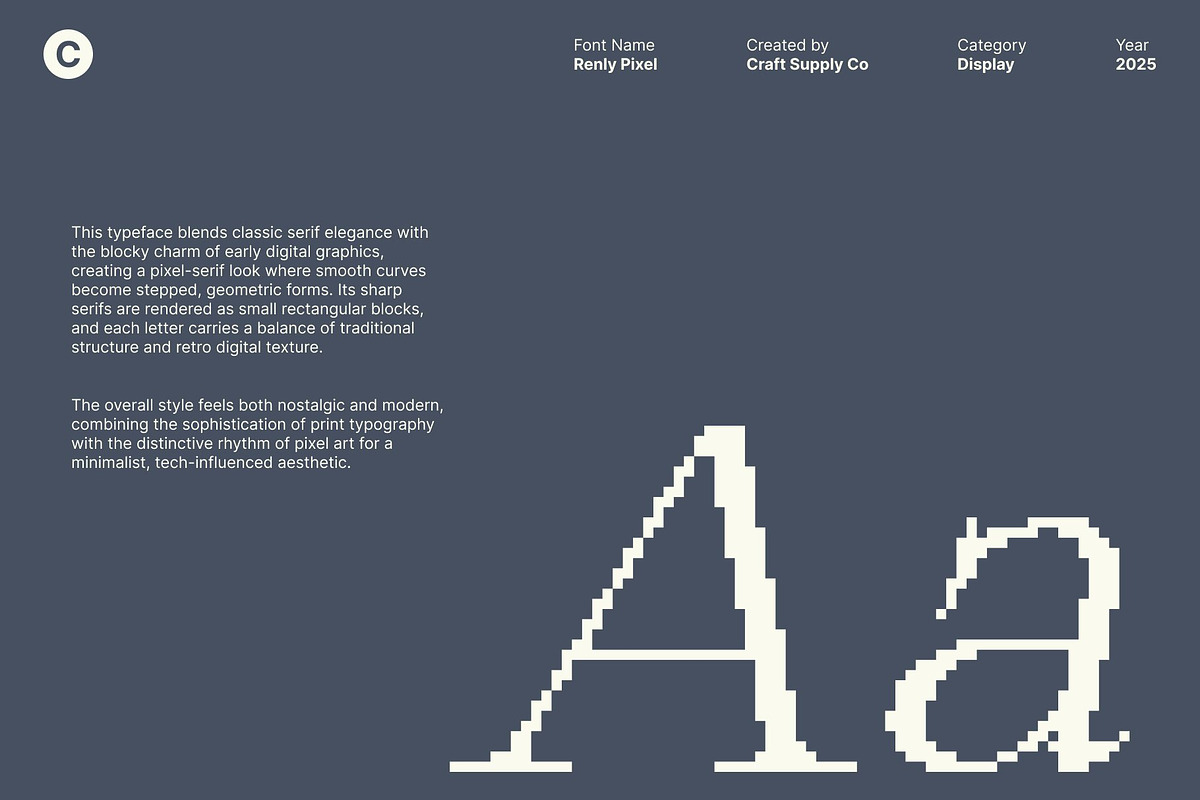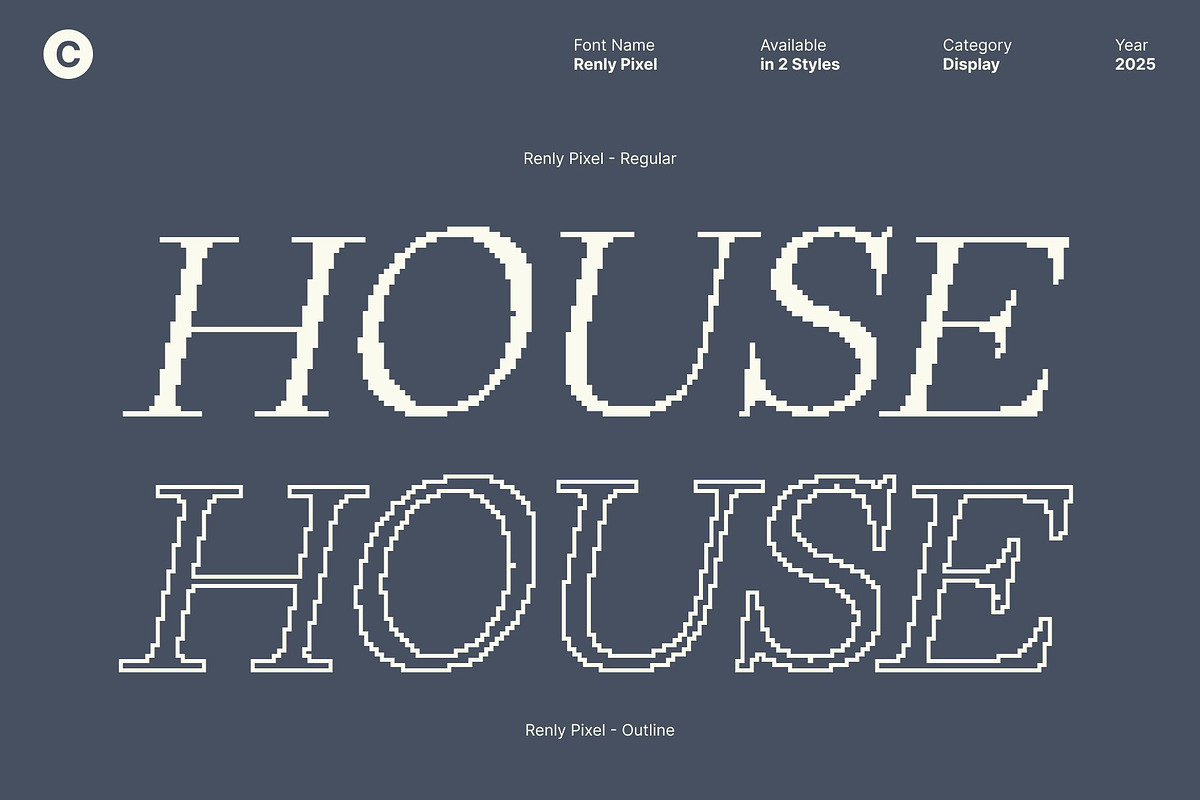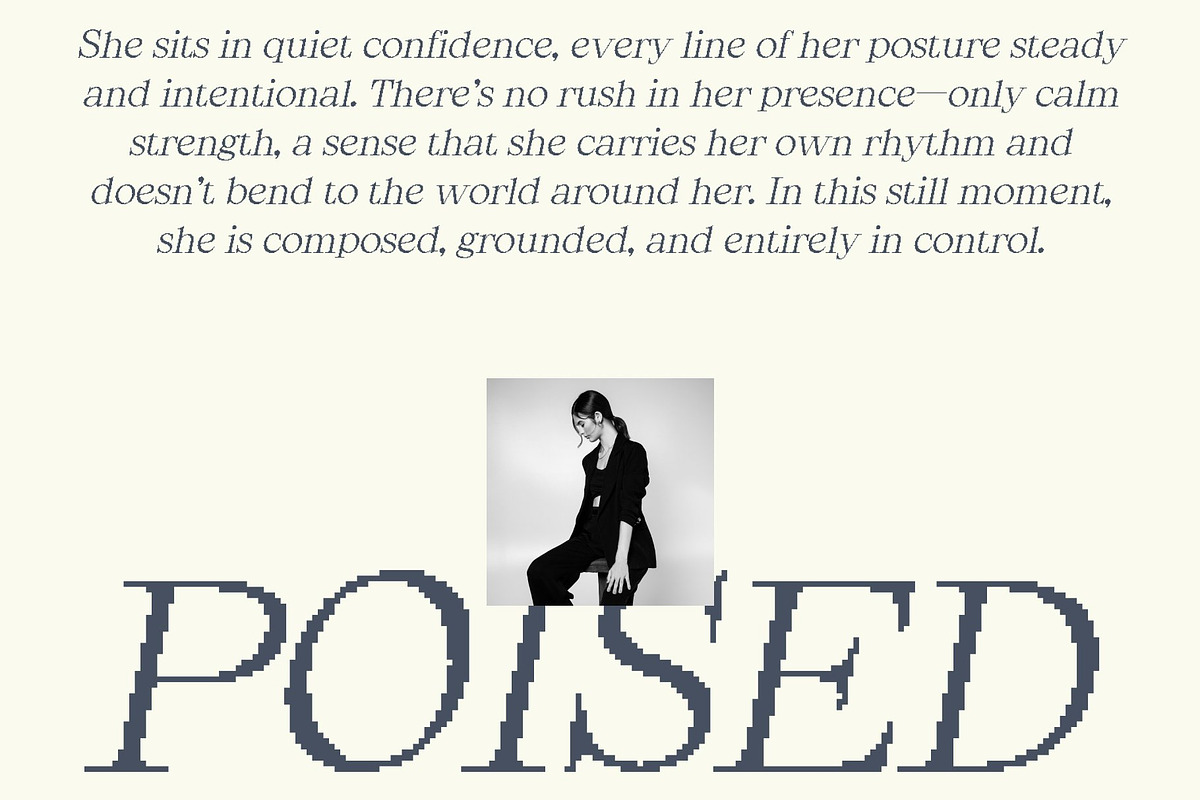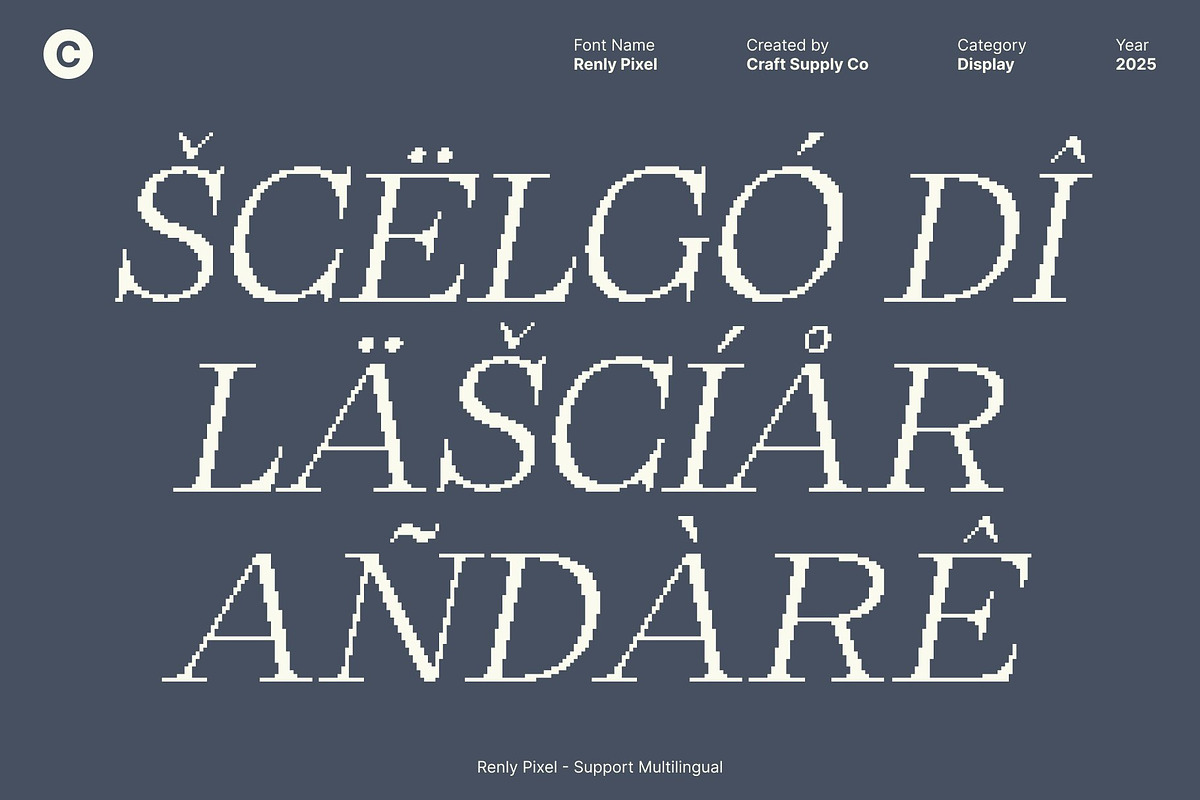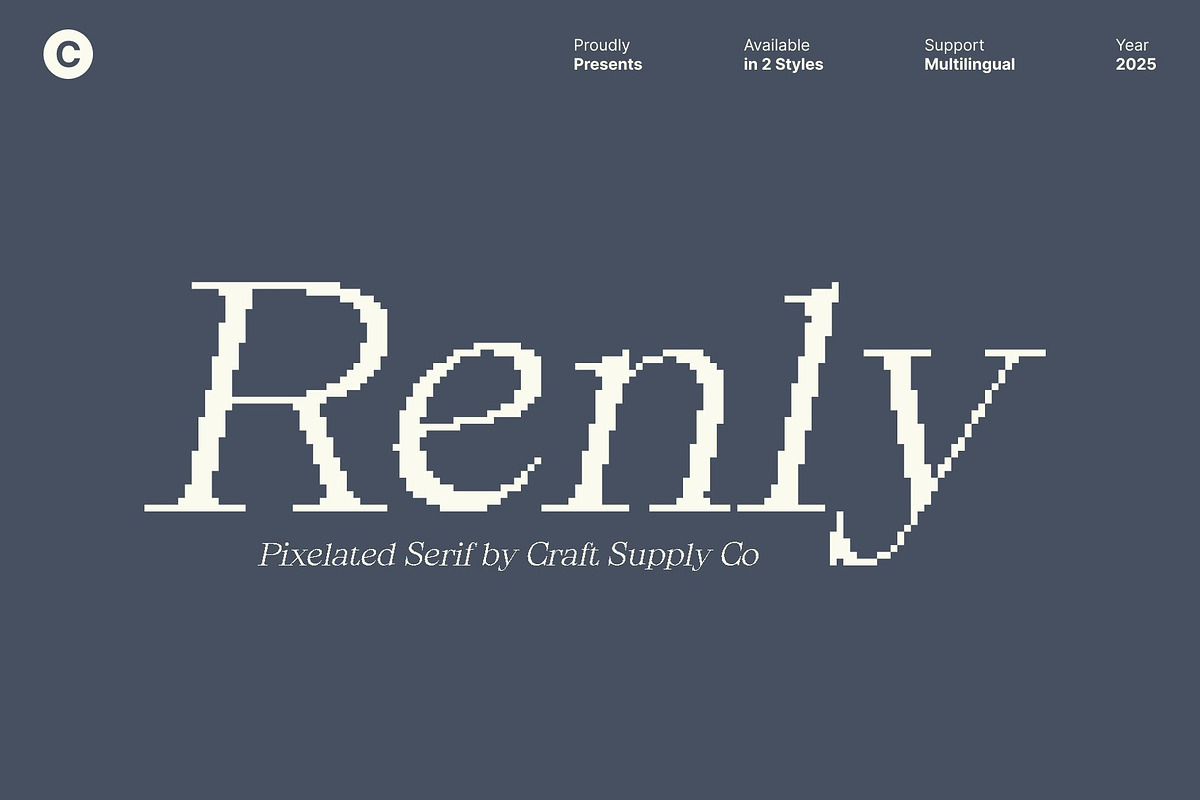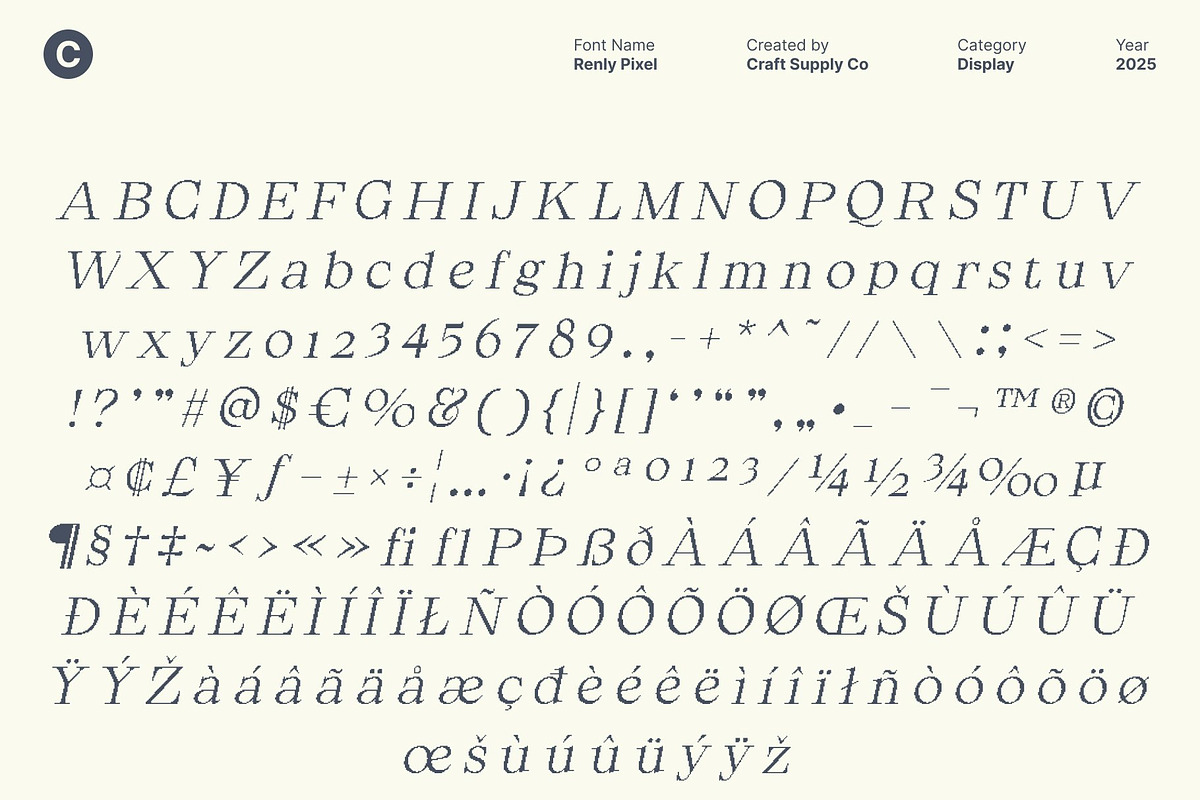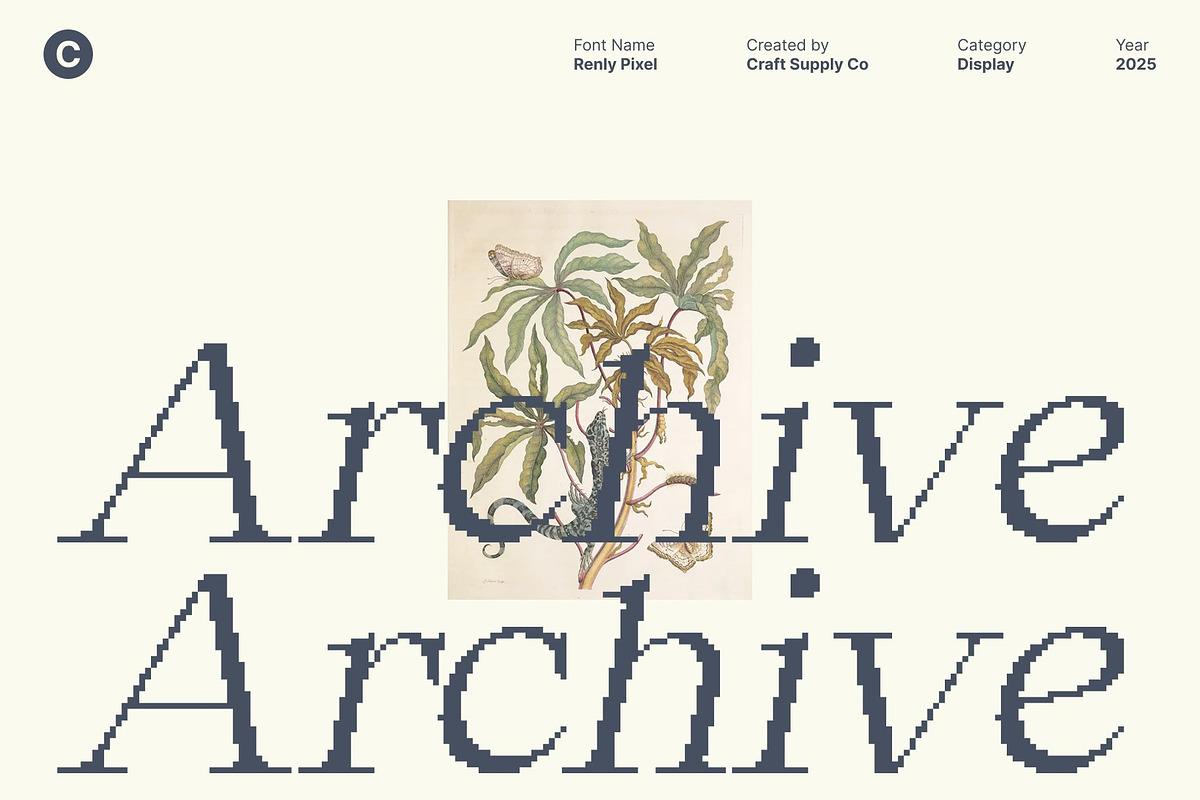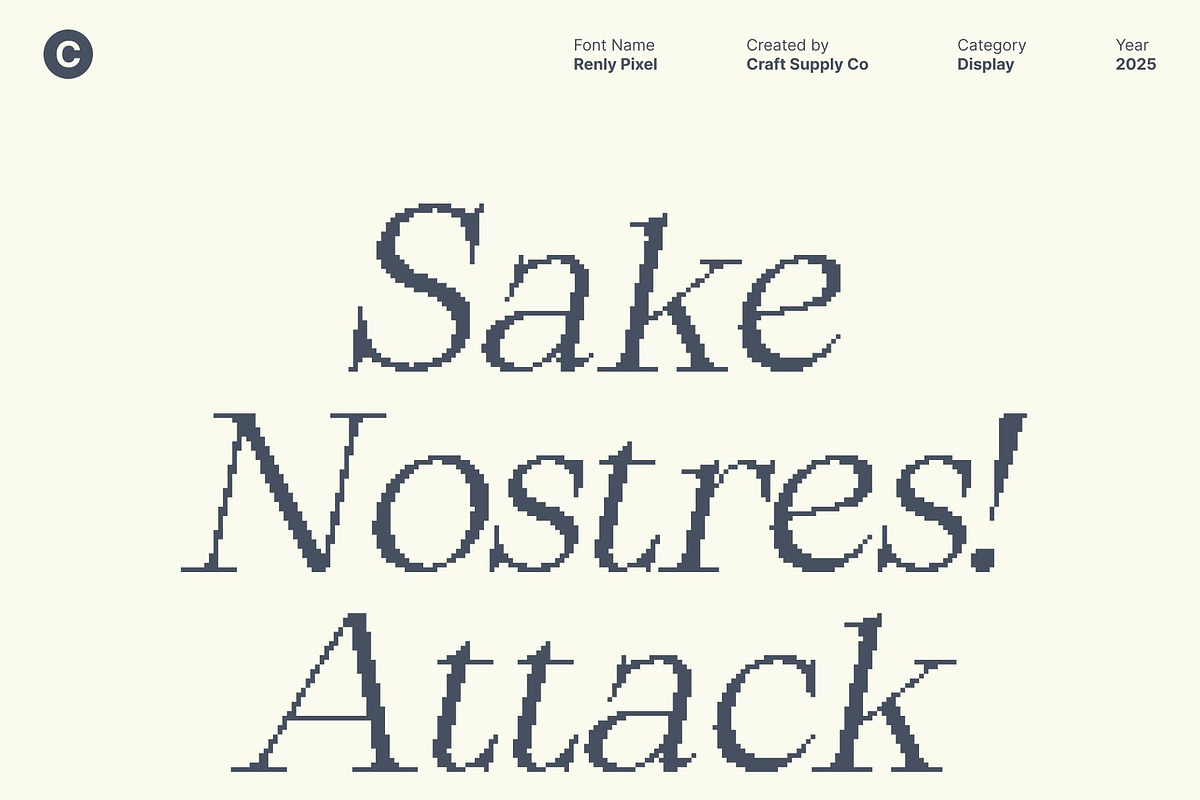
Renly Pixel
Renly Pixel – Modern Classic Serif with Digital Elegance
Where Classic Sophistication Meets Digital Modernity This is a modern classic serif font designed to bring elegance, clarity, and a contemporary edge into any visual project. Featuring clean, sleek shapes rooted in timeless serif traditions, this font delivers a refined and captivating appearance.
Clean, Sleek Serif Shapes for a High-End Look Crafted with precision, this font showcases beautifully shaped serif forms that feel both classic and current. The clean lines and smooth contours create a sophisticated presence, making the font ideal for editorial layouts, branding, and premium design work that relies on polished typography.
Pixel Characters Add Digital Personality and Creative Energy The subtle pixel styling introduces a digital twist that enhances this font’s unique identity. This pixel texture adds energy, freshness, and a modern personality, blending seamlessly with its classic serif foundation. The result is a distinctive hybrid typeface that feels both timeless and tech-inspired perfect for designers exploring modern digital aesthetics.
Perfect for Luxury Branding, Editorial Design, and Stylish Projects This font shines in projects that demand elegance and creativity. From luxury branding and magazine layouts to posters and expressive visual identities, this font offers a stylish, refined, and visually striking look. Its combination of classic elegance, modern simplicity, and pixel charm makes it a versatile choice for high-impact, artful design.
- Renly Pixel Regular
- Renly Pixel Outline